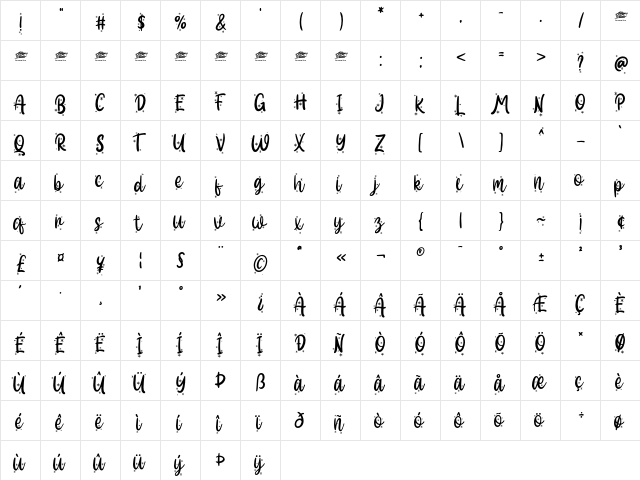
Hallo White Display - Personal Regular
| Foundry | Attype Studio |
| Designer | Fadli Ramadhan Iskandar |
Design Context for Hallo White Display - Personal Typeface
Hallo White Display - Personal is built around its visual character rather than neutral utility — its distinctive forms are designed to make an impression at display sizes.